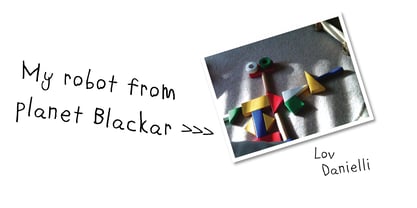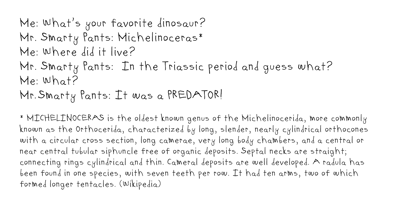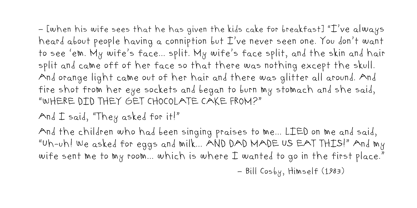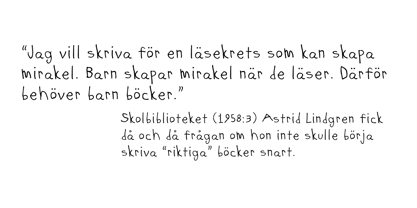
Mano Danielli Font
Mano Danielli Font is perfect for artisanal branding, handcrafted product labels, boutique coffee shops, authentic restaurant signage, creative portfolios, indie music albums, artistic social media graphics, craft brewery marketing, handmade jewelry branding, and personalized stationery designs.
What makes Mano Danielli Font so exciting is its authentic handcrafted character that perfectly captures the essence of artisanal creativity with genuine personality and organic charm. This distinctive typeface embodies artistic authenticity and creative spirit, delivering typography that tells stories of craftsmanship, passion, and individual expression.
The Mano Danielli Font family includes regular and bold weights, featuring natural variations, organic textures, handcrafted ligatures, and artistic flourishes that provide designers with comprehensive tools for creating authentic and memorable typography that celebrates the beauty of handmade artistry.
Experience authentic craftsmanship with Mano Danielli Font Free Download, a masterfully crafted typeface that brings the genuine spirit of artisanal creativity to contemporary design projects. This exceptional font embodies the perfect fusion of handcrafted authenticity and professional quality, making it an ideal choice for brands that celebrate individual creativity and artistic excellence.
The organically flowing letterforms of Mano Danielli Font showcase handcrafted elegance with artistic character that creates instant recognition of authenticity and creative passion. Each character displays careful attention to maintaining the organic variations that define genuine handmade artistry while ensuring contemporary readability and professional versatility. The font's natural curves and artistic spacing contribute to its authentic appearance and creative appeal.
Artisanal brands and creative professionals consistently choose Mano Danielli Font for projects requiring authentic character and artistic sophistication. The comprehensive character set includes uppercase and lowercase letters, numerals, extensive punctuation, international accents, and artistic decorative elements that provide complete support for creative branding applications and handcrafted design compositions.
The artistic versatility of Mano Danielli Font ensures exceptional performance across both traditional print and modern digital platforms. Whether developing artisanal brand identities, creating handcrafted marketing materials, or designing authentic social media content, this remarkable typeface delivers consistent authenticity that resonates with audiences seeking genuine creativity and artistic expression.
Transform your most creative projects with Mano Danielli Font Free Download. This extraordinary typeface brings handcrafted authenticity and artistic sophistication to typography, making it the essential choice for designers who create experiences that celebrate the timeless beauty and enduring appeal of genuine artistic craftsmanship.